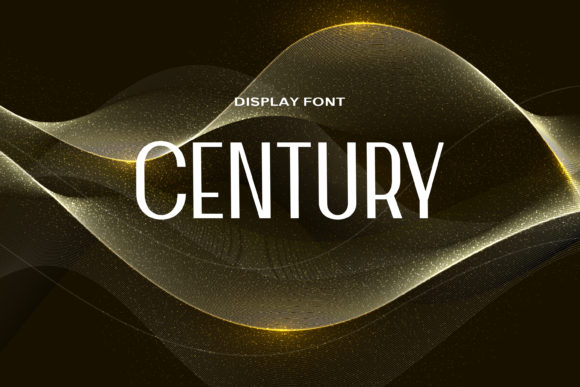
Century Font Download Display Fonts: In a digital world flooded with trendy and decorative fonts, there’s something reassuring about a classic. Century Font is one such typeface — solid, timeless, and effortlessly readable. This versatile serif font has stood the test of time, offering a clean and bold design that continues to power everything from books and academic papers to logos, signage, and branding materials.
Whether you’re a designer looking for a trustworthy font, a student preparing a report, or a brand manager in need of elegant typography, Century Font brings clarity and authority to the table. In this post, we’ll explore the history, design features, uses, download options, and free alternatives of the Century Font.
What Is the Century Font?
Century Font is a family of serif typefaces originally designed in the late 19th century. The first version, simply called “Century,” was created by Theodore Low De Vinne and Linn Boyd Benton in 1894 for Century Magazine. It was developed to improve readability in print, especially in smaller sizes. Over the years, it evolved into several variants, including Century Schoolbook, Century Expanded, Century Gothic, and Century Old Style.
Today, when people refer to “Century Font,” they usually mean Century Schoolbook or Century Expanded — fonts known for their wide letterforms, tall x-heights, and clear, traditional aesthetic.
Key Features of Century Font
Century is a transitional serif font, sitting between the old-style fonts like Garamond and modern serifs like Didot. Here’s what makes it special:
Highly Legible: Designed for print, the font remains easy to read even at small sizes.
Balanced and Clean: The proportions are uniform and harmonious, with generous spacing.
Strong Presence: Century has a subtle boldness, giving it confidence without shouting.
Classical Elegance: Its serif structure offers a refined, academic, and timeless look.
Whether used in headlines or body text, Century has the rare ability to be both formal and accessible.
The Evolution of Century Font Variants
There’s no single “Century Font” — it’s a family of related typefaces. Here are the most popular styles and how they differ:
1. Century Schoolbook
Originally designed for children’s books and education.
Rounder, more open letterforms.
Great for readability in long texts.
2. Century Expanded
A slightly wider version of the original Century.
Often used in business documents, publishing, and editorial content.
3. Century Gothic
A sans-serif reinterpretation of the original design.
Clean, modern, and geometric.
Often used in digital design and branding.
4. Century Old Style
A more traditional and ornamental version.
Ideal for classic, historical, or vintage-themed projects.
Each version of Century has a distinct personality, but they all share the same foundational clarity and confidence.
Why Use Century Font?
Here are just a few compelling reasons why designers and professionals choose Century Font:
✅ Ideal for Print & Long-Form Reading: Its origins lie in print publishing, making it excellent for magazines, books, and newspapers.
✅ Perfect for Education & Academia: Century Schoolbook is commonly used in textbooks, research papers, and scholarly publishing.
✅ Professional and Trustworthy: Its conservative style is perfect for law firms, consultants, banks, and formal institutions.
✅ Great for Logos & Branding: The bold and simple letterforms lend themselves well to timeless logos and wordmarks.
Whether you’re creating academic content, professional documents, or classy branding, Century Font delivers sophistication without complexity. And with free alternatives available, there’s no reason not to incorporate this elegant typeface into your next design project.